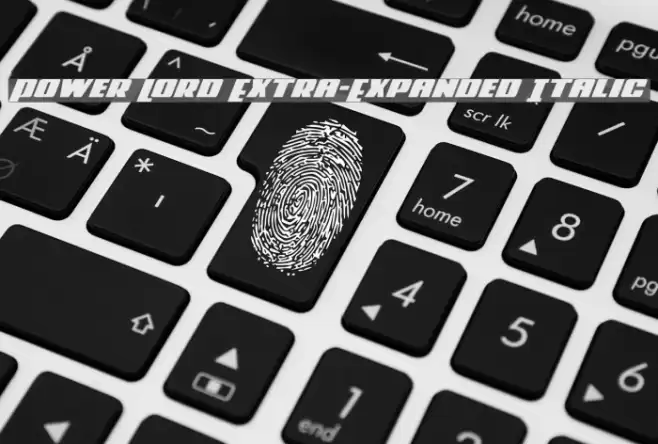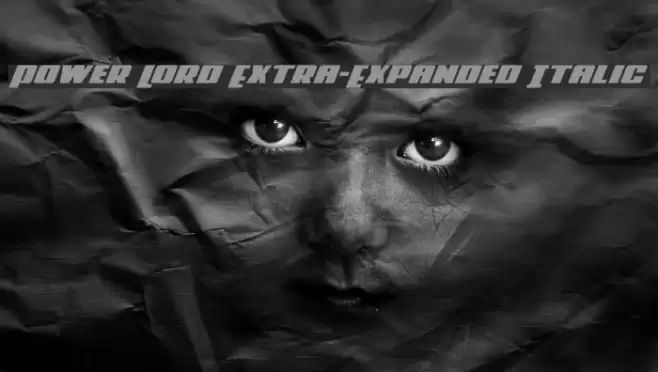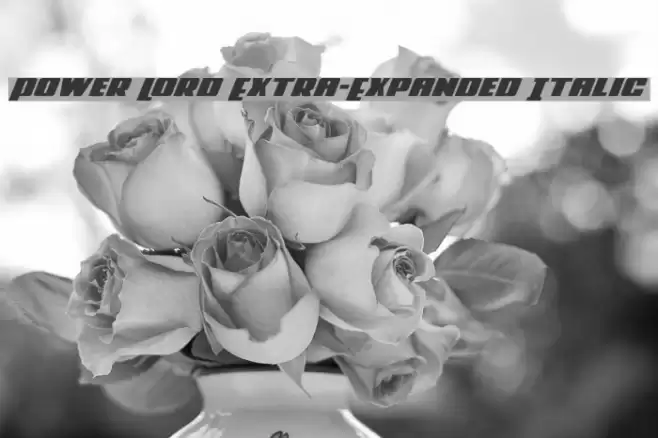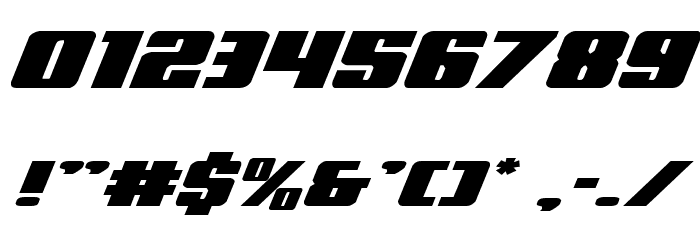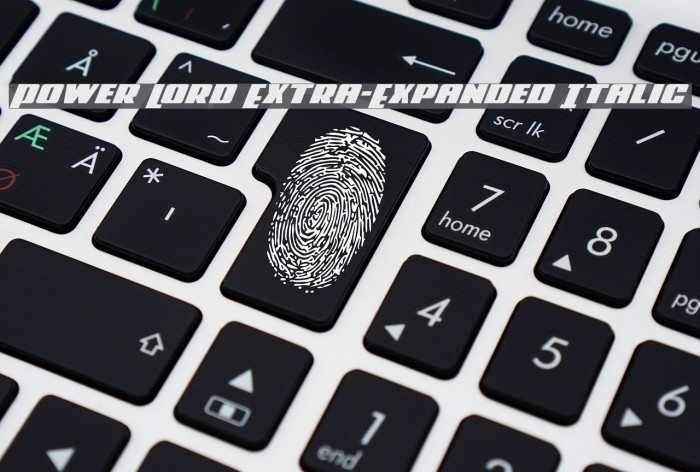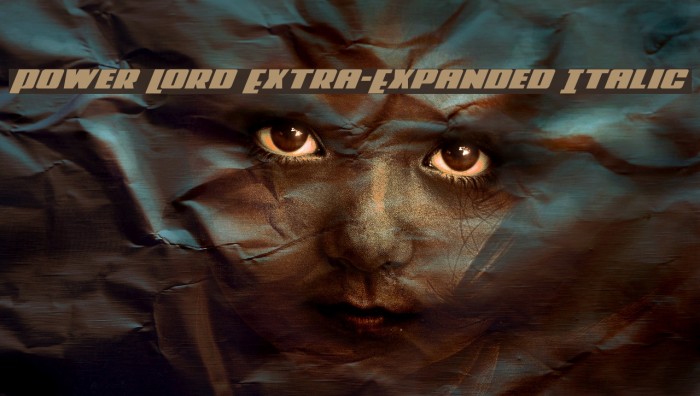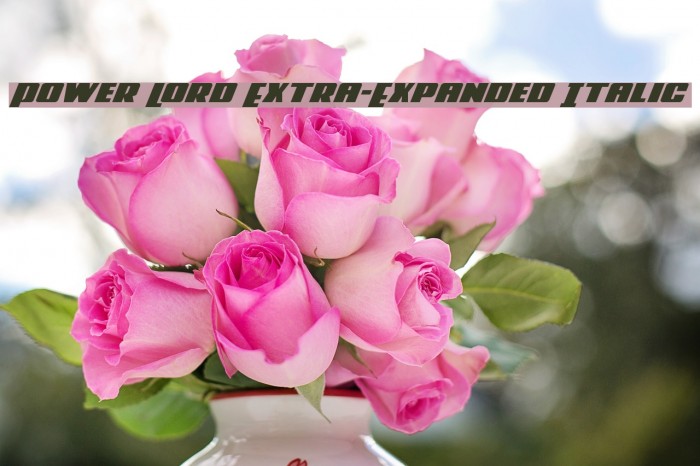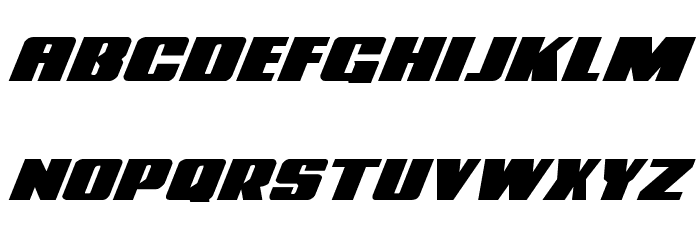
Power Lord Extra-Expanded Italic Font
Power Lord Extra-Expanded Italic Description
This font exhibits a bold and dynamic style with an italicized slant, giving it a sense of motion and energy. The characters are extra expanded, providing a wide and commanding presence. Each letter features sharp, angular edges and a consistent stroke width, contributing to its strong and impactful appearance. The design is modern and assertive, making it suitable for attention-grabbing headlines or branding that requires a powerful visual statement. The numerals and special characters maintain the same bold and expanded characteristics, ensuring uniformity across all glyphs.
A bold, italicized, extra expanded font with a modern and dynamic style from Uncategorized fonts.
- Proposed Projects: Ideal for sports branding, action movie posters, video game titles, or any project needing a bold and energetic typeface.